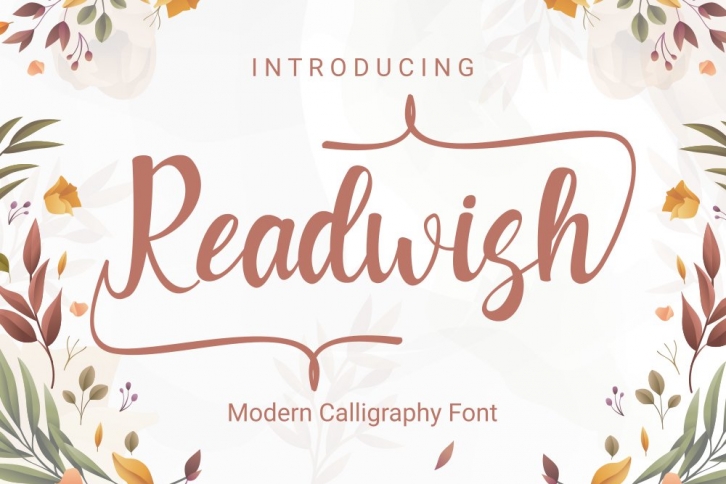
Readwash is a trendy and unique font with an authentic style. It was designed by Rvandtype and it's a great choice for creative people who need such a font. It was released on September 5, 2020 and the file size is 19.19 MB. Readwash will add an organic vibe to any design idea!